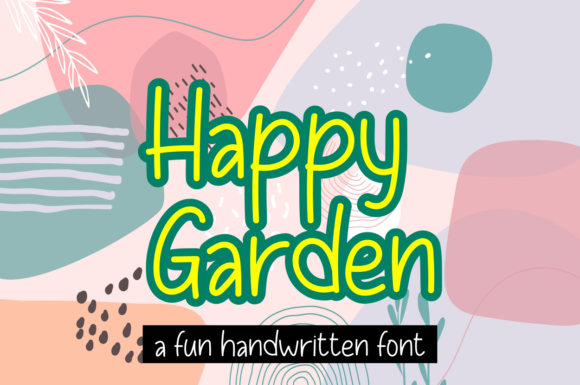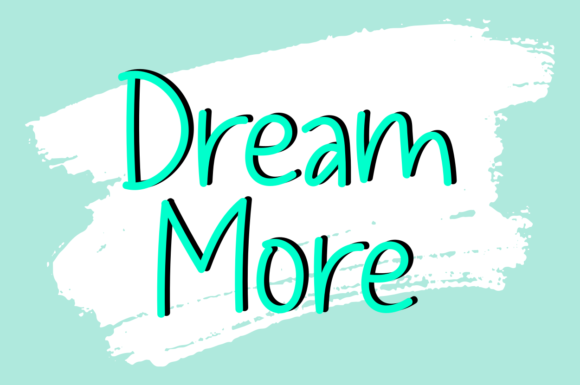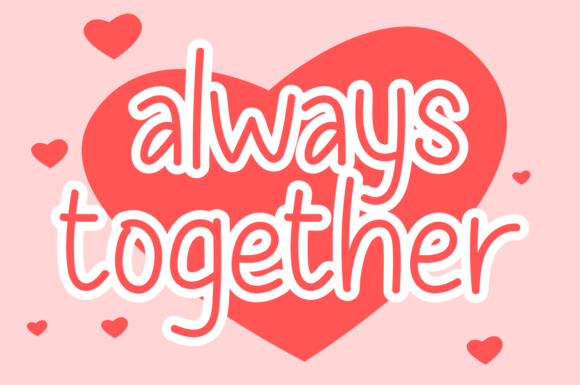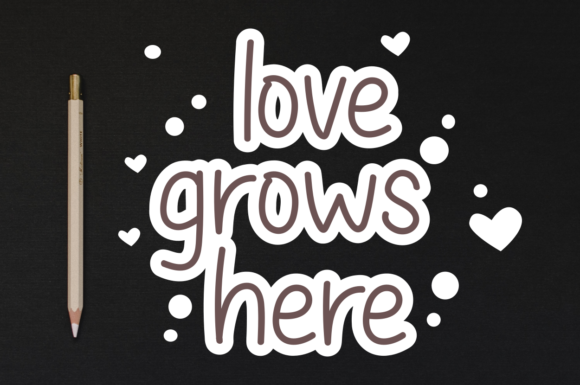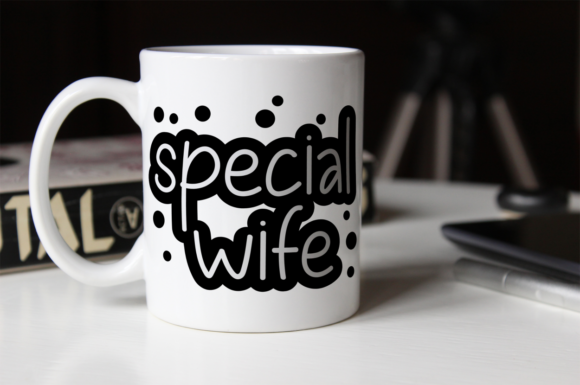
Personal Use Free Happy Garden 0 245 FacebookTwitterPinterestWhatsApp 1 of 5 About Happy Garden Font Happy Garden is a fresh & simple handwritten font. Thin lettered, friendly and jolly, this font will turn each of your project ideas into real works of art. DOWNLOAD NOW